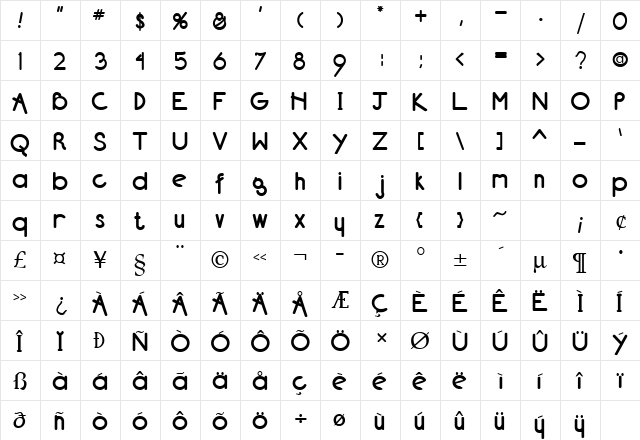
Sun Bold
Design Context for Sun Typeface
Sun offers clean, dependable letterforms without strong stylistic allegiance, making it a practical choice for designers who need flexibility. The heavy weight commands attention and anchors typographic hierarchies.